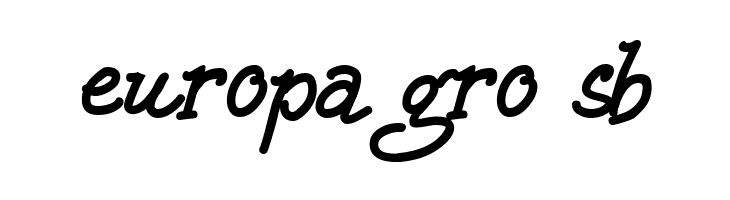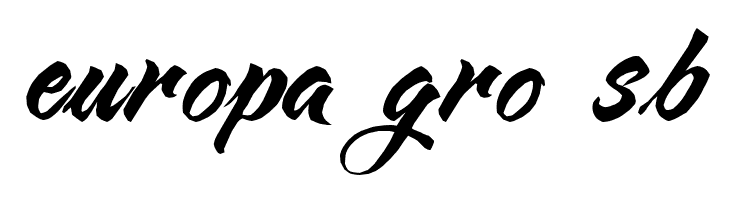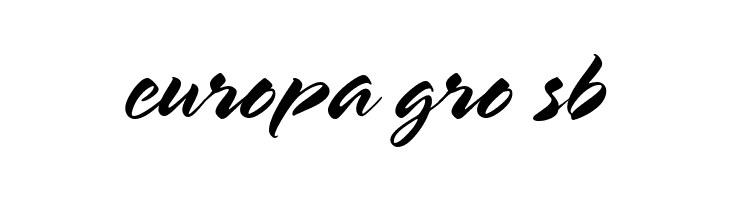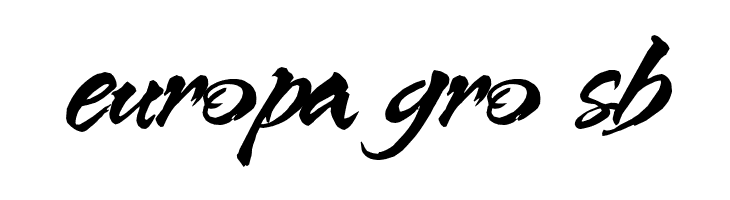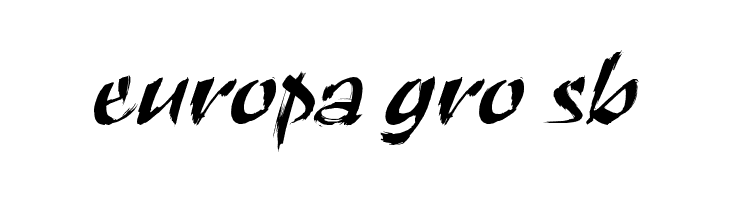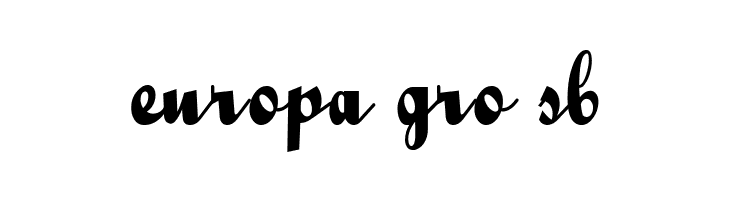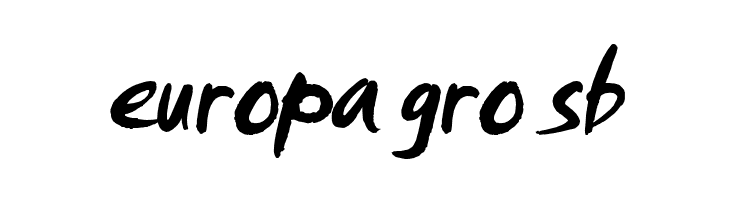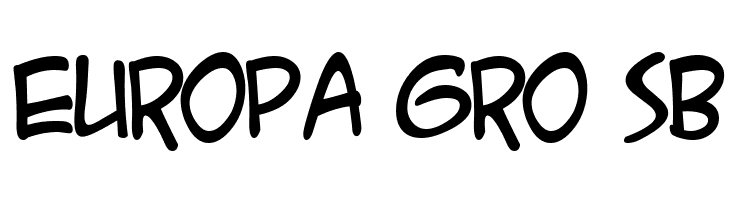
• HL Fantasy2
A whimsical and playful font with irregular, hand-drawn letterforms.
• HL Freewrite
A bold, expressive handwritten font with a graffiti-like style.
• HL Fantasy3
A bold, cursive font with a playful and energetic style.
• HL Butlong
A bold, expressive script font with flowing, cursive letterforms.
• HL Brush 2BK
A bold, expressive brush script font with fluid strokes and a hand-drawn feel.
• HL Netbutlong
A bold, fluid script font with a modern, handwritten style.
• HL Brush 1BK
A dynamic brush-style font with bold, expressive strokes and a hand-painted feel.
• HL Butlatre
A bold, decorative script font with expressive, sweeping strokes.
• HL Brush 3BK
A bold, brush-style font with dynamic, hand-drawn strokes.
• HL Comic2